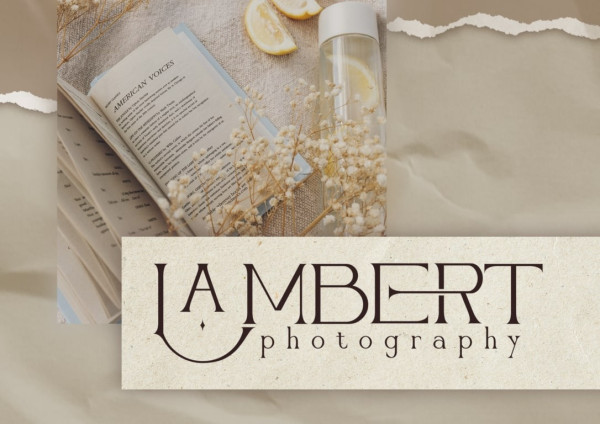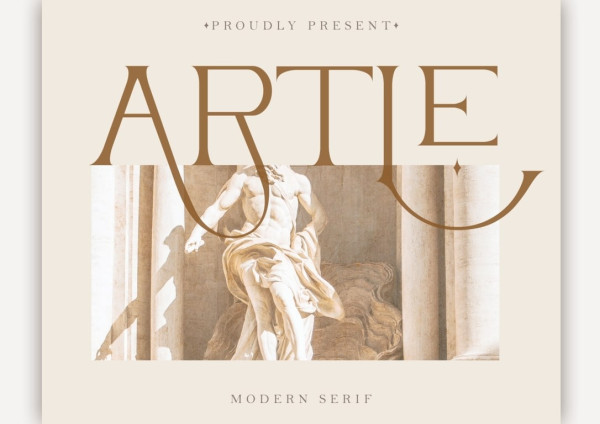
Artle Font
Artle Font is a sophisticated OpenType serif font that showcases letters gracefully dancing and intertwining, resulting in captivating and elegant typography designs. With a wide array of interwoven OpenType ligatures and alternate characters, you have a vast selection and abundant variety to create a truly distinctive look in your final designs.